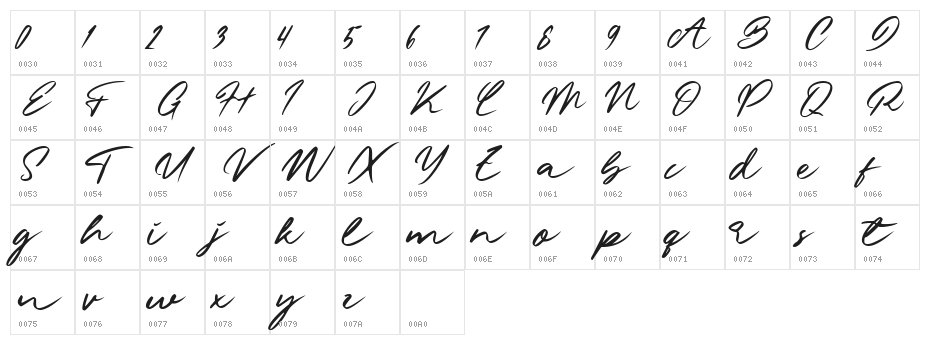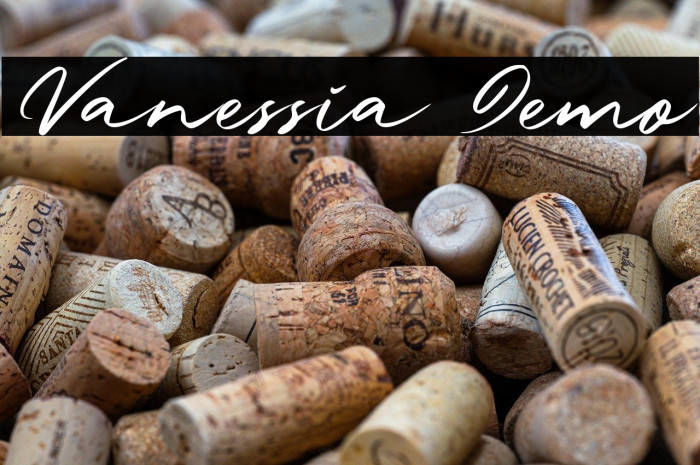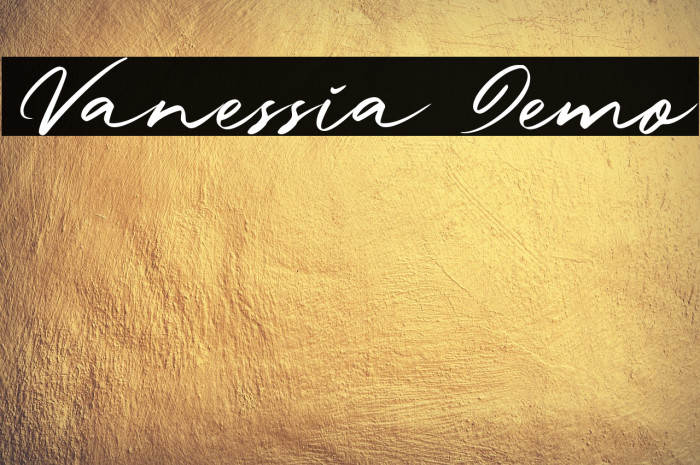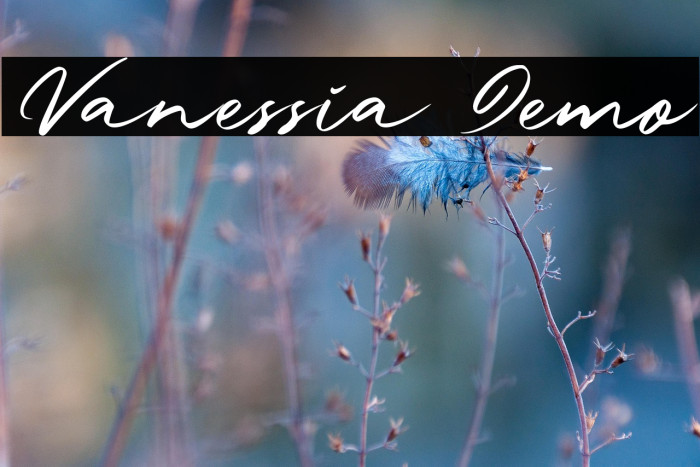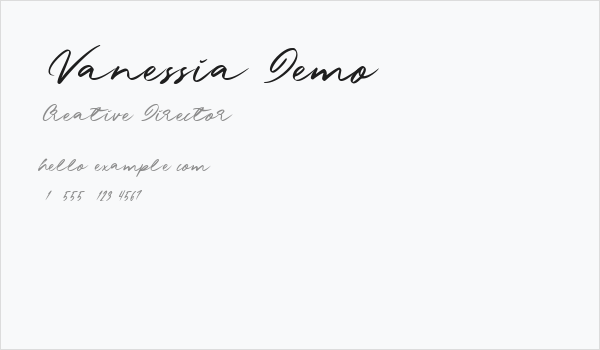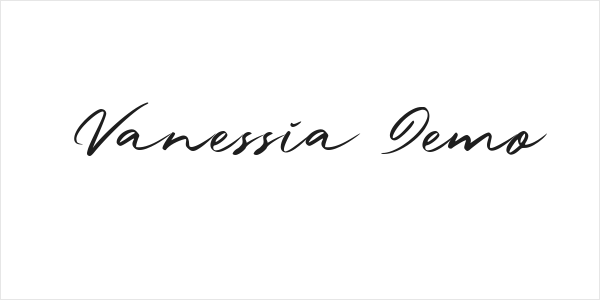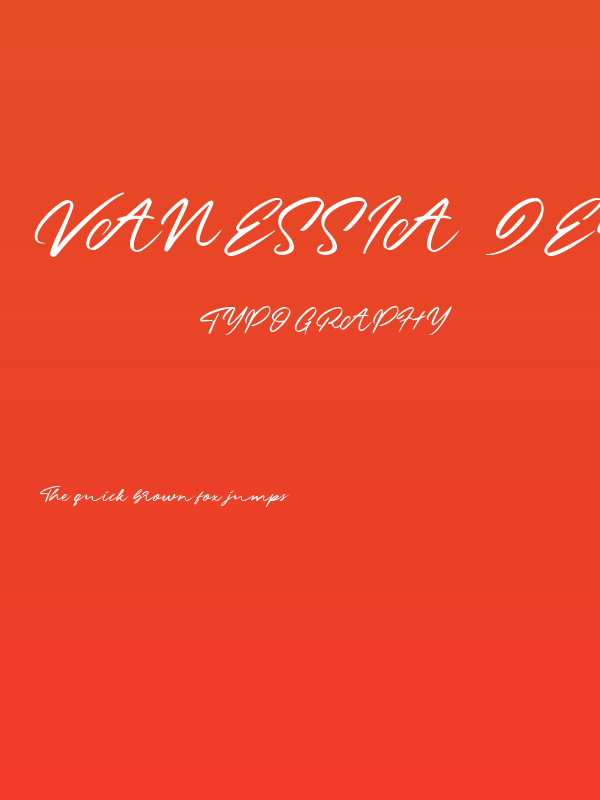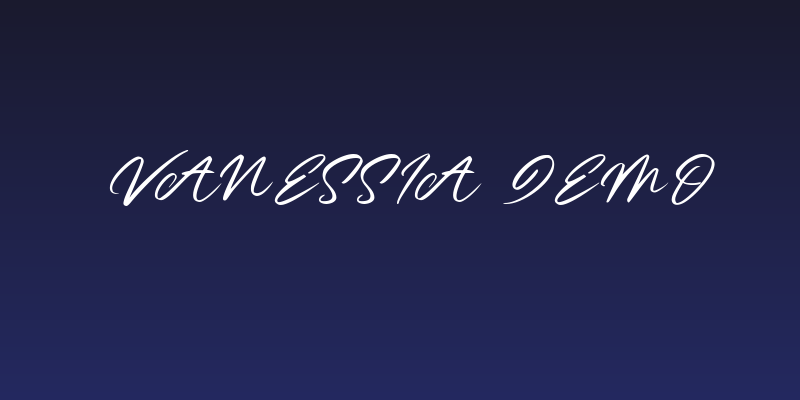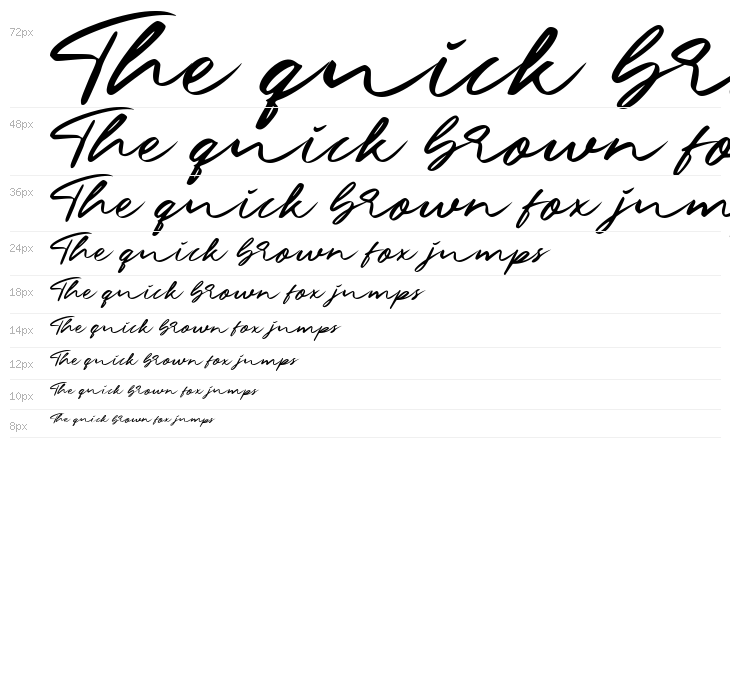
Vanessia Demo Font
Vanessia Demo Description
This elegant script font features a flowing, cursive style with smooth, connected strokes that mimic the fluidity of handwriting. The uppercase letters are slightly more ornate, with graceful loops and flourishes, while the lowercase letters maintain a consistent, flowing form. The numerals are bold and distinct, matching the overall aesthetic of the script. The font exudes a sense of sophistication and charm, making it ideal for projects that require a personal touch. The special characters are seamlessly integrated, maintaining the cohesive style of the font.
| Proposed Projects | Ideal for wedding invitations, elegant branding, personal stationery, and decorative quotes. |